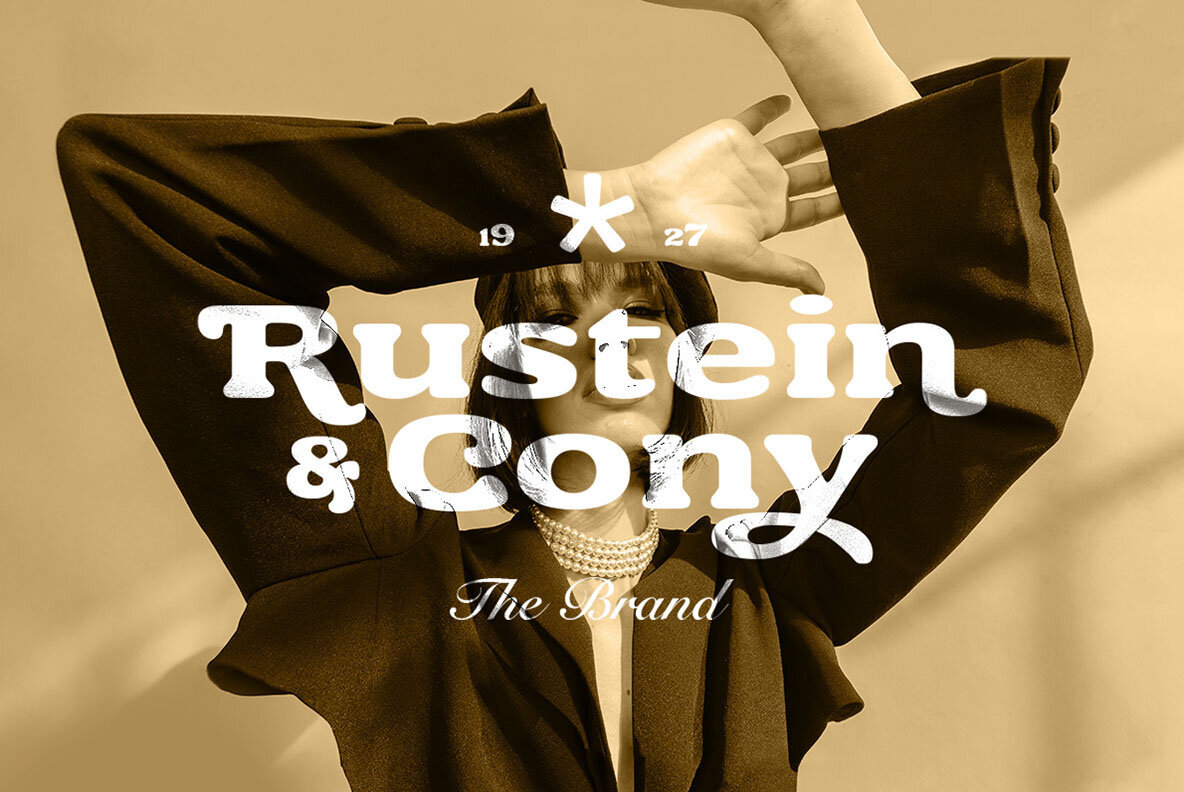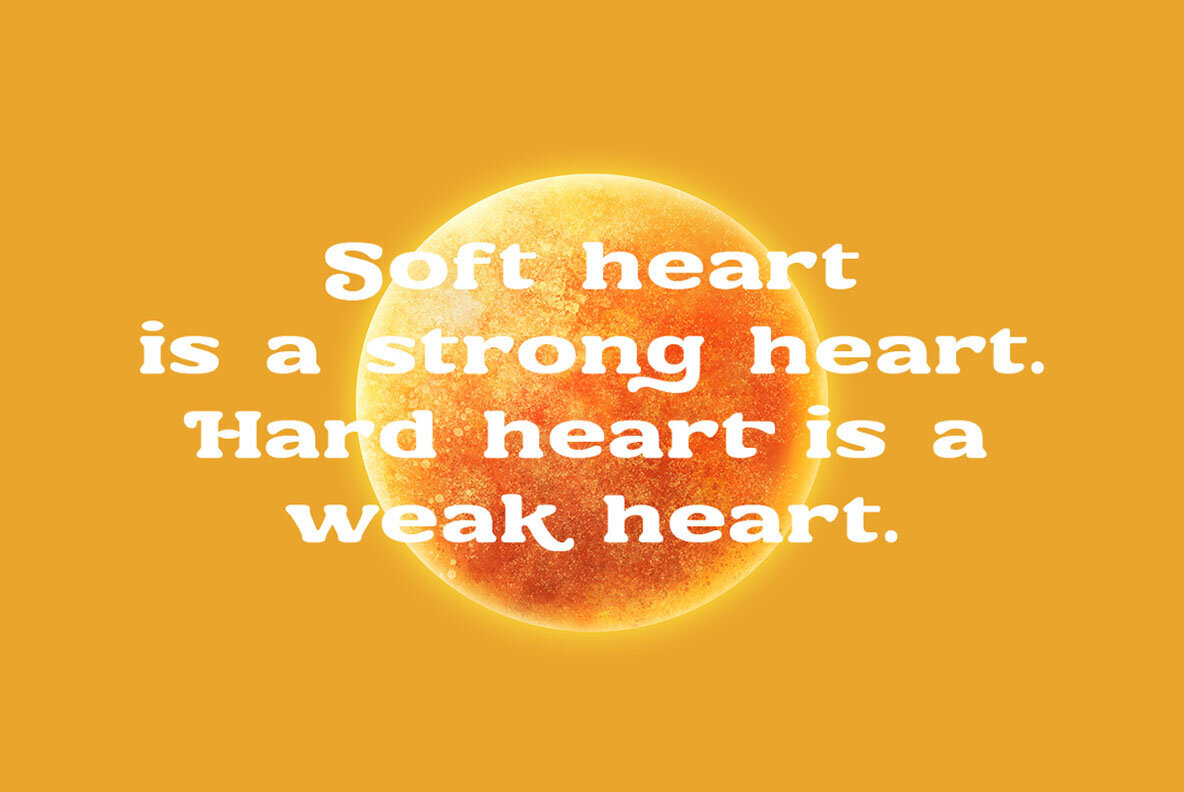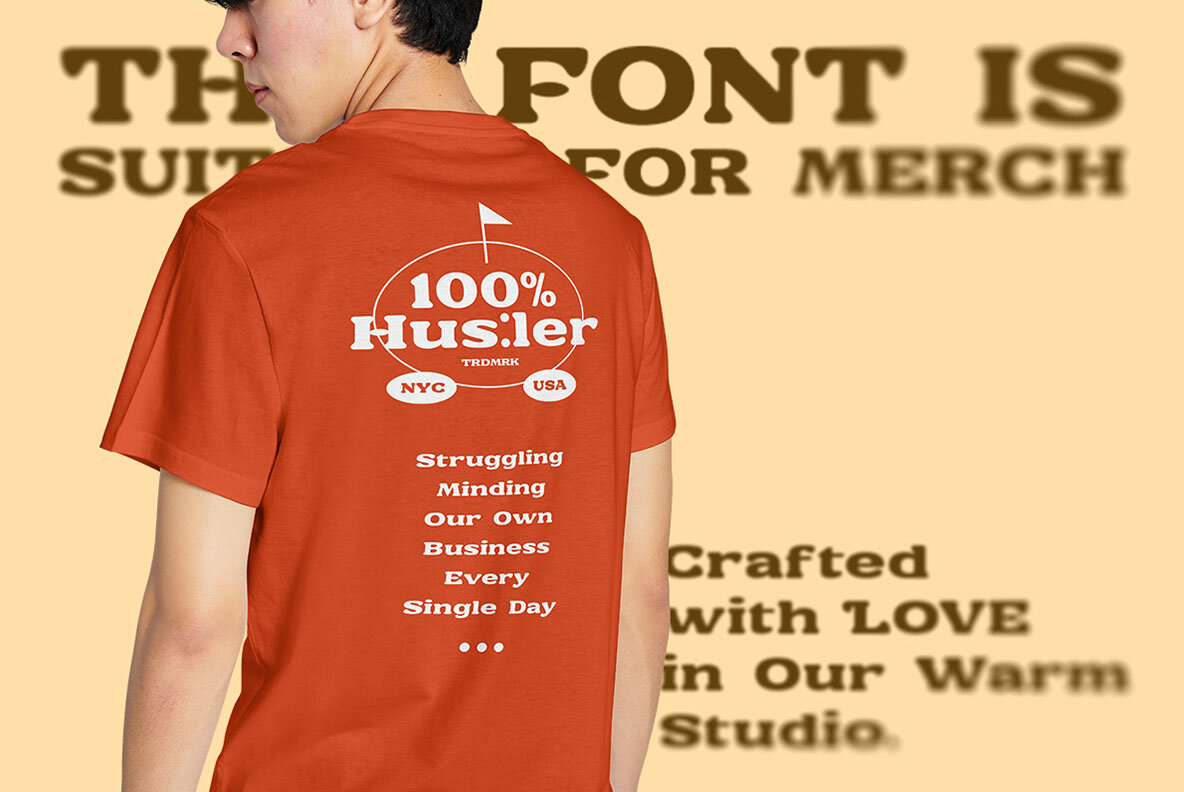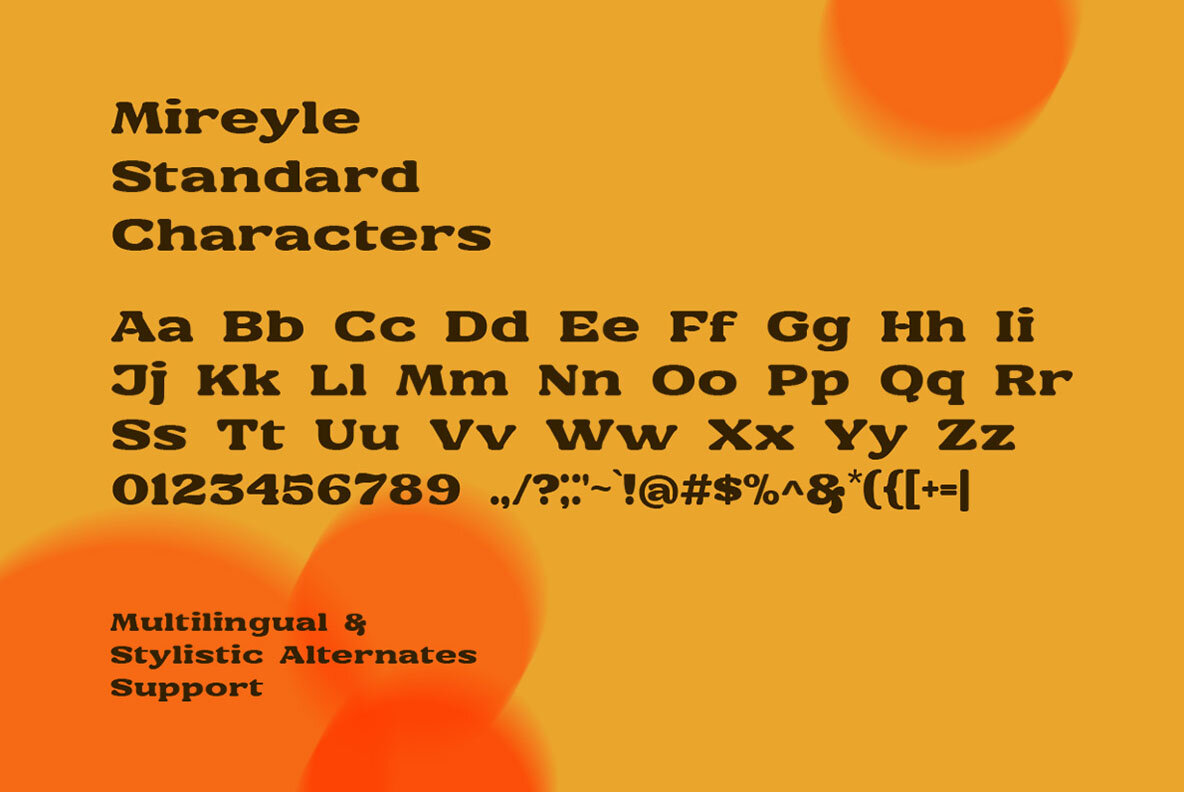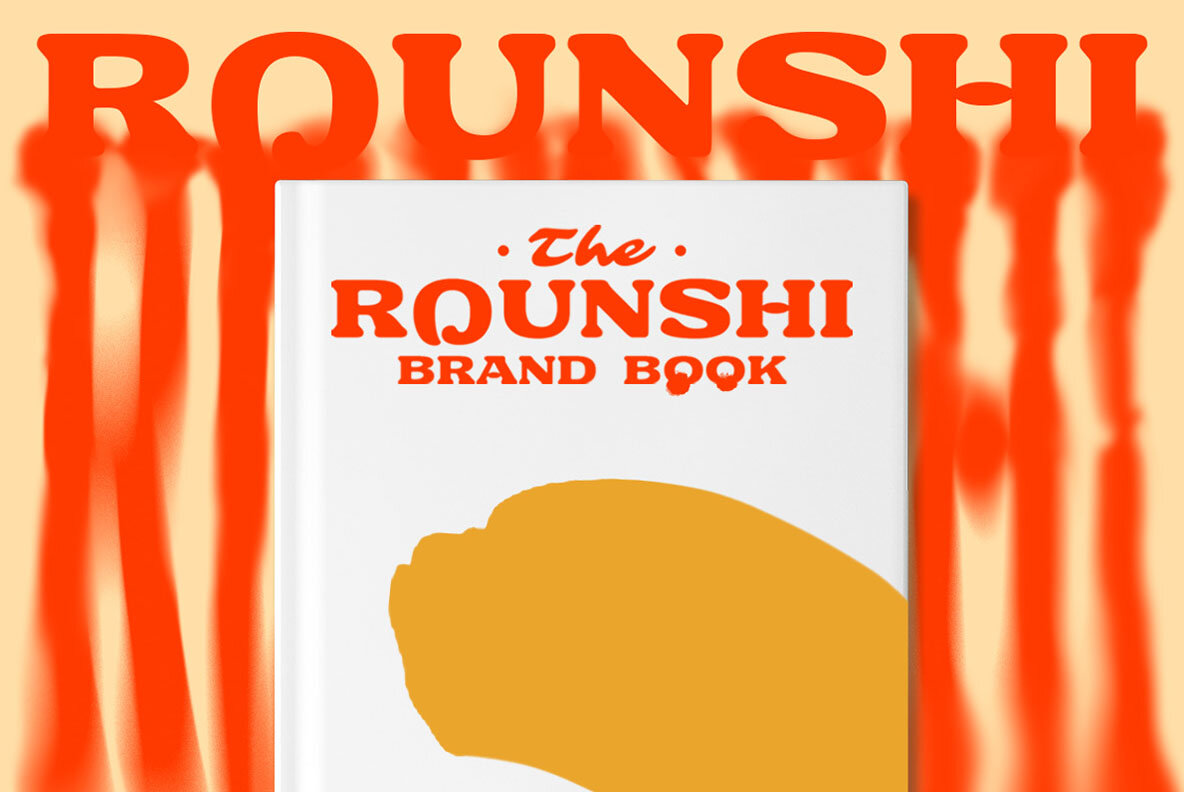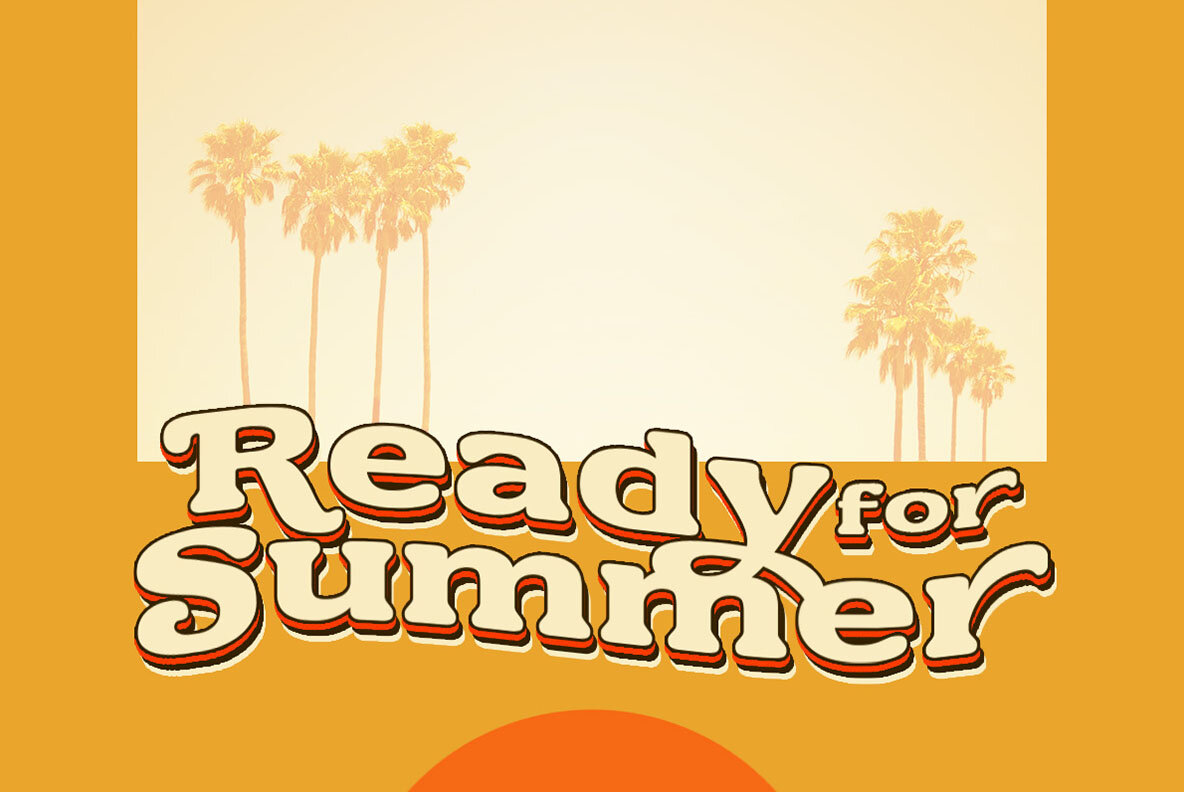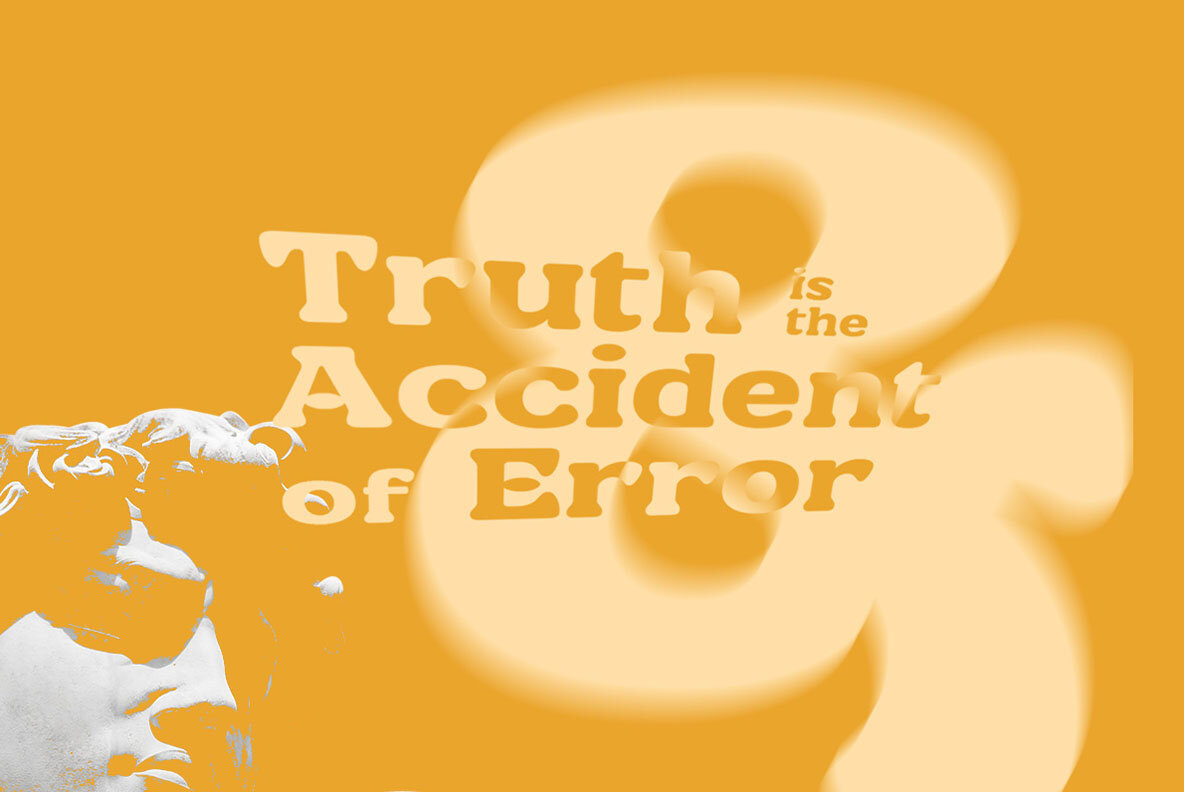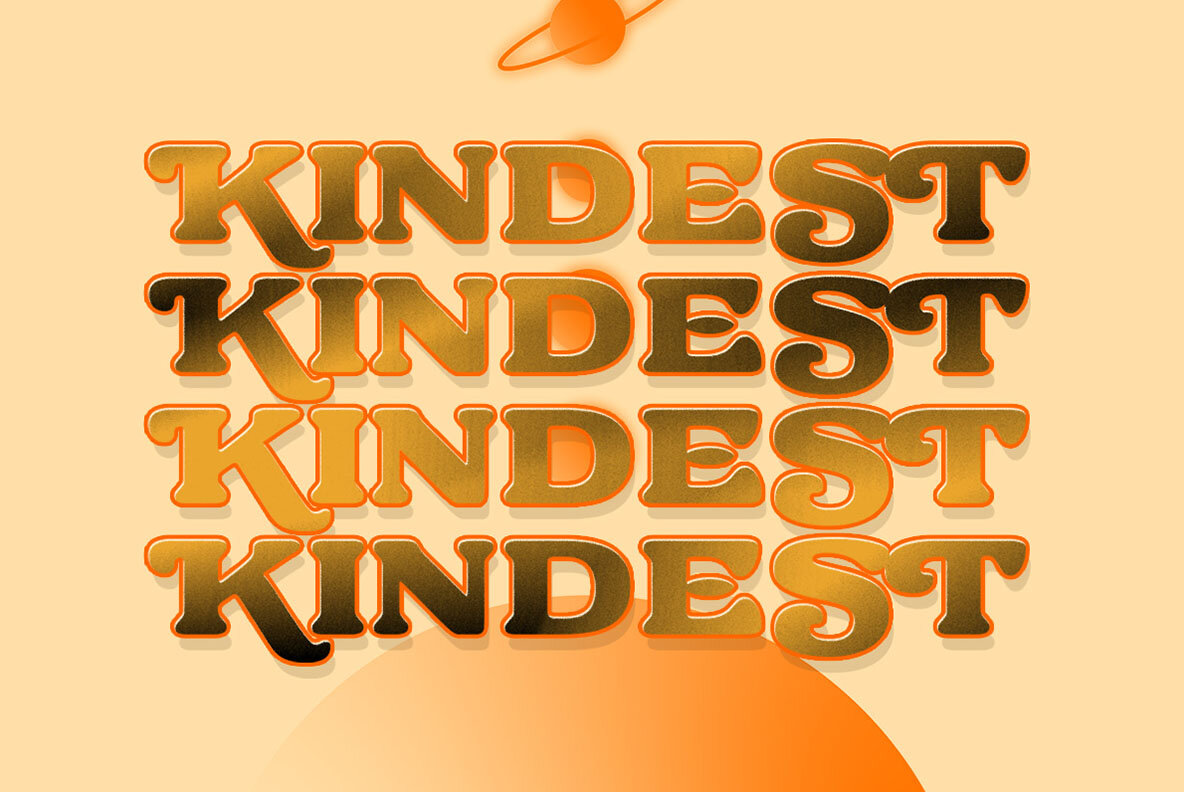
Mireyle Font
Mireyle Regular
Mireyle is a font that infuses a classic personality into your designs. Its bold style makes it suitable for various projects, such as posters, invitations, greeting cards, and logos. Whether you're crafting a children's book or designing a striking brand identity, Mireyle delivers an impactful solution. For the best experience, we recommend using programs that support OpenType features and Glyphs panels, such as many Adobe applications and Corel Draw, allowing you to access all Glyph variations.Mireyle: Bold Font with Classic Personality